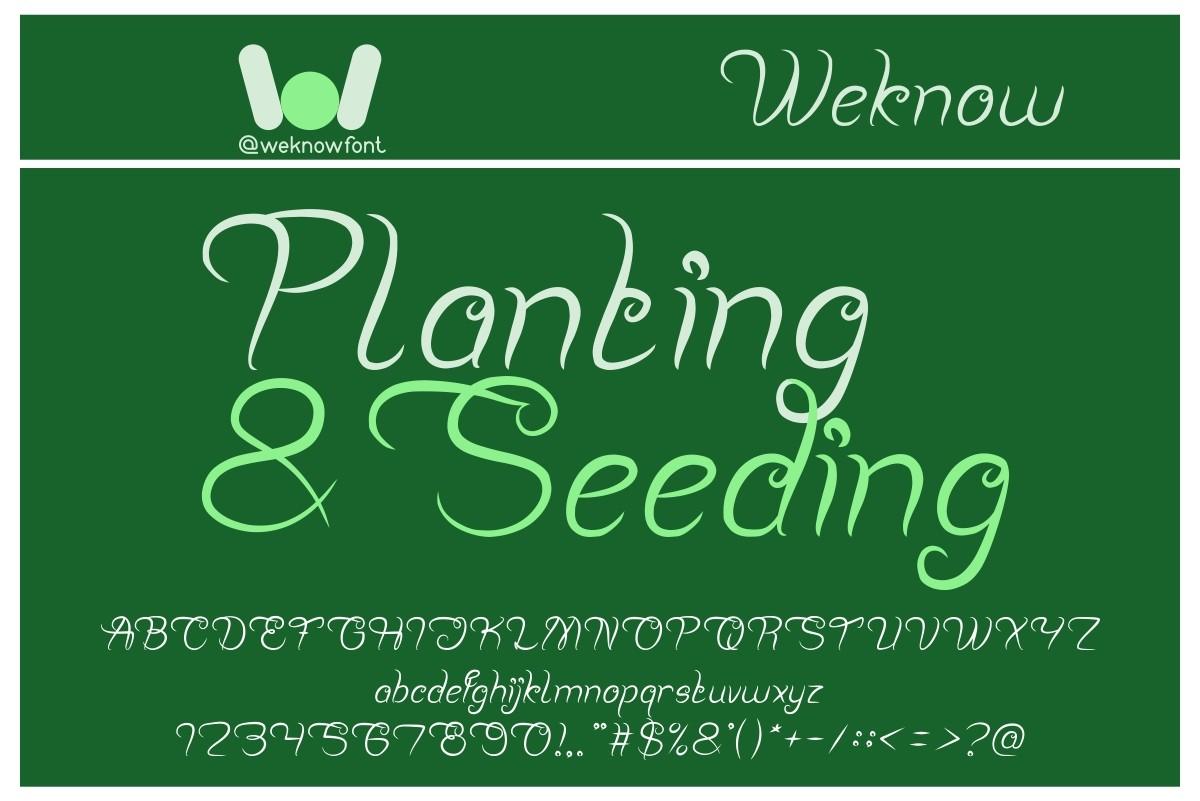
Planting and Seeding Font Description
Planting and Seeding is a script font suited for logos, logotypes, headlines, corporate and brand identity, apparel industry, posters, music, movies, games, magazines, books, comics, cartoons, YouTube, Instagram, websites, or any of your next creative design projects.